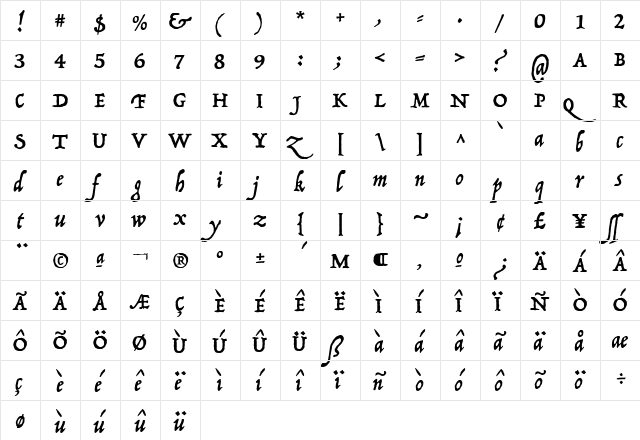
Operina Romano P22 Regular Font Preview
Operina Romano P22 Regular
Operina Romano P22 Regular Font Details
Design Context for Operina Romano P22 Typeface
Operina Romano P22 is a composed and adaptable typeface that performs quietly and consistently across a wide range of design contexts.
Pro Tip: Use Operina Romano P22 in both headline and body roles to test its range before committing to a single application.